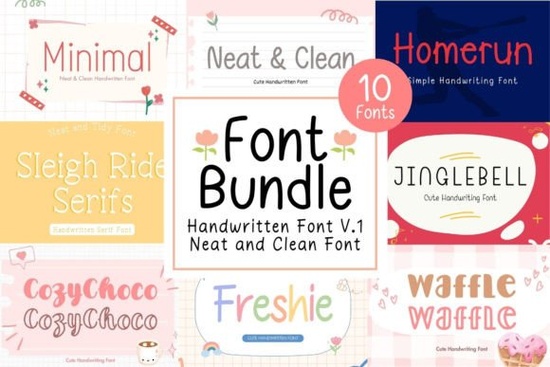
If you're looking for a set of handwritten fonts that feel personal but stay legible especially for digital planners, classroom materials, or clean product labels the Neat & Clean Handwritten Font Bundle V.1 Font is a thoughtful, practical choice. It’s not overly decorative or hard to read at small sizes, and it avoids the “too casual” look that can undermine professionalism in teaching resources or shop branding. With 10 distinct fonts included, it gives you room to match tone and purpose without switching between unrelated collections.
What makes these fonts work well for real projects?
Unlike some handwritten fonts that lean too sketchy or inconsistent, each font in this bundle was designed with rhythm and spacing in mind. That means they hold up well in GoodNotes, Canva, and Procreate even when resized or layered over photos. You’ll notice subtle differences: some have gentle slant and soft terminals (The Sunnyside Font), others offer crisp contrast and rounded letterforms ideal for kid-friendly worksheets or boutique packaging. They’re all true OTF/TTF files, so no extra software or conversions are needed.
Where do people actually use them?
Teachers and homeschoolers often pick this bundle for editable PDF planners and printable flashcards especially around back-to-school season. The clarity helps students follow along, while the warmth keeps things inviting. Print-on-demand sellers use them for minimalist t-shirt quotes, sticker sheets, and greeting cards where “handmade” appeal matters but readability can’t be sacrificed. Designers building brand kits for small businesses (like local bakeries or children’s clothing lines) appreciate how easily these fonts pair with clean sans-serifs or light serifs.
How does it compare to other popular script fonts on Creative Fabrica?
It’s less ornate than Bellaboo Font, which has more dramatic flourishes great for invitations, but less flexible for everyday use. It’s also more structured than Amor Note Font, which leans romantic and delicate. If you like the balance of charm and function, you might also enjoy Chicano Font for bolder headlines but keep in mind it’s more stylized and less suited to body text. For daily use across formats, the Neat & Clean Handwritten Font Bundle V.1 Font sits comfortably in the middle: friendly, consistent, and quietly versatile.
Who might want to look elsewhere?
If you need highly decorative swashes, variable weights (light to bold), or extensive language support, this bundle won’t cover those needs. Similarly, if your focus is strictly on calligraphy-style brush fonts for wedding stationery, something like Amor Note Font may better suit that niche. But for steady, warm, and easy-to-read handwriting across planners, lesson plans, social posts, and small-batch merch? This collection delivers without overcomplicating things.
- ✅ Your projects benefit from approachable yet tidy lettering (not too stiff, not too loose)
- ❌ You don’t need advanced typographic features like stylistic alternates or variable axes
If those match your needs, the Neat & Clean Handwritten Font Bundle V.1 Font is a reliable, low-friction option one you’ll likely reach for again and again when simplicity and sincerity matter most.